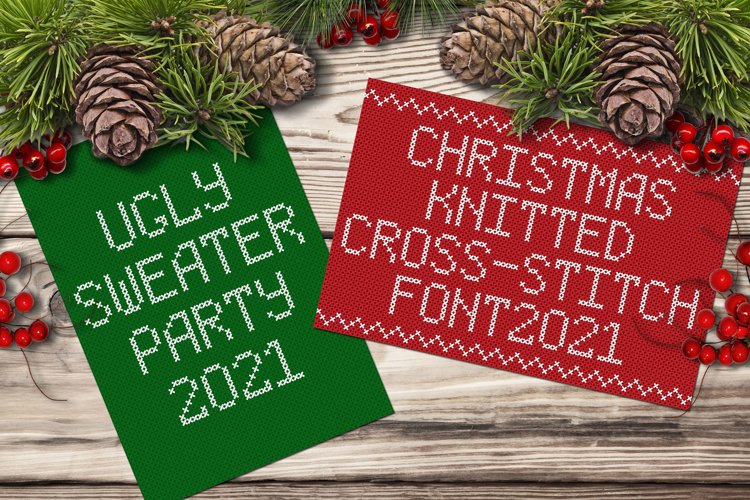
'Tis the Season For An Ugly Christmas Sweater Font - specially tailored for your holiday needs. Get yourselves a custom sweater for this year's Christmas with the help of the Complete Knitted Font.